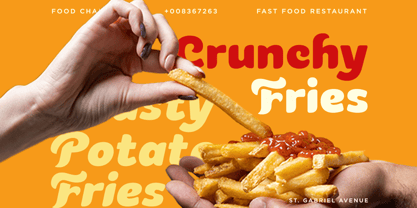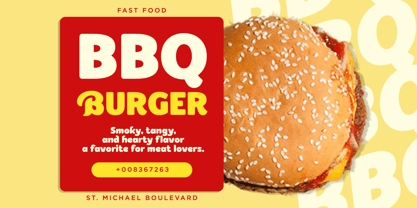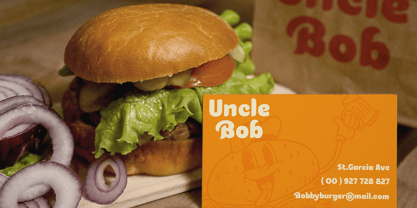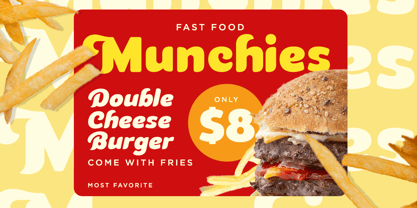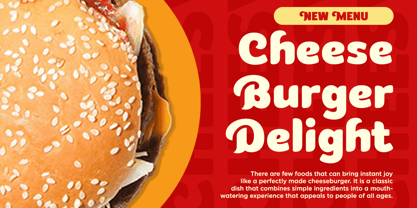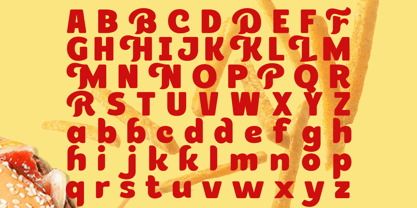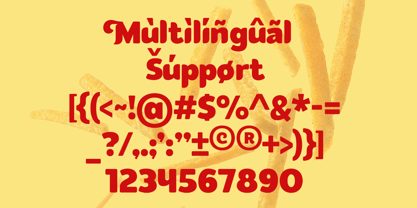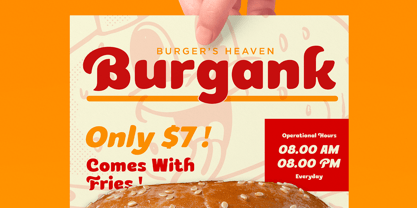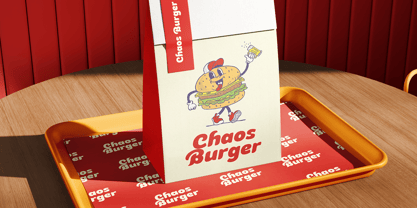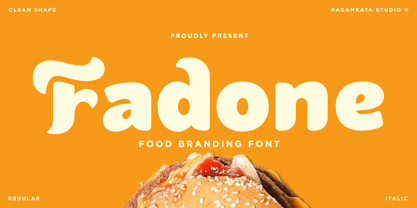
Fadone
Die Schriftfamilie Fadone wurde von Yogiswhara Dio Prakoso Riadi entworfen und von RagamKata veröffentlicht. Fadone enthält 2 Stile und Familienpaketoptionen. Mehr über diese Familie
Fadone is a bold, playful, and clean food branding font designed to infuse warmth, appetite appeal, and a friendly personality into every design. With its smooth curves, soft edges, and balanced proportions, Fadone delivers a joyful and inviting character that instantly captures attention and fosters emotional connections. Its approachable typographic tone makes every word feel delicious, fun, and inviting. Tailored for food brands, restaurants, cafés, beverage labels, and packaging design, Fadone offers exceptional versatility across both commercial and creative projects. Whether for logo design, menu layouts, product packaging, food labels, café signage, or street food branding, this font enhances social media content, advertisements, and promotional visuals, helping to create memorable brand identities that feel tasty, fresh, and modern. Ideal for fast food brands, dessert packaging, snack logos, drink labels, food truck visuals, café branding, bakery identities, or Instagram food campaigns, Fadone ensures strong visual impact and brand consistency. Its bold structure and playful style make it perfect for projects that require friendly charm, high visibility, and irresistible brand appeal across both digital and print platforms. Thank You! Ragamkata